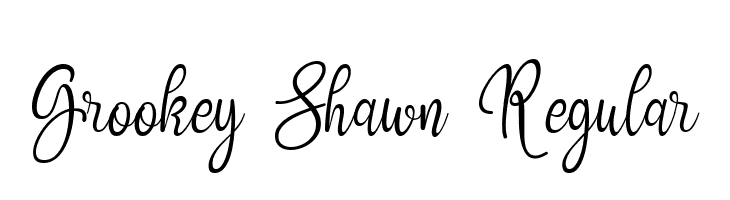
A playful and elegant script font with flowing, cursive letters.
A dynamic and flowing script font with elegant, cursive letterforms.
A flowing, cursive script with elegant, sweeping strokes and a handwritten appearance.
An elegant script font with flowing, calligraphic lines and a sophisticated style.
A casual, elegant handwritten script with flowing, cursive strokes.
A graceful, flowing script font with elegant, continuous strokes.
A bold, playful script font with a handwritten feel.
A dynamic, expressive handwritten font with fluid, connected letterforms.
A playful, handwritten script font with fluid strokes and a lively appearance.
A dynamic, brush-style font with expressive, fluid strokes.